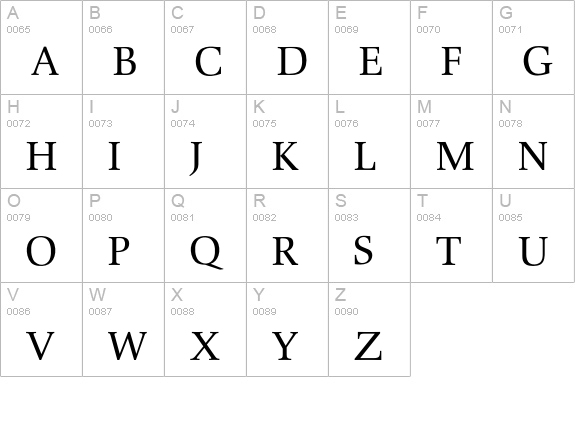
Pacific Font Details
Pacific font is an exquisite typeface that embodies elegance and sophistication. With its clean lines and timeless appeal, it effortlessly captures attention and adds a touch of refinement to any design project. This font is the perfect choice for those seeking a versatile typeface that can be used in various contexts, from branding materials to editorial layouts. Its well-balanced proportions and gentle curves create a harmonious visual experience, making it easy to read and pleasant to the eye. One of the most remarkable aspects of Pacific font is that it is available for free. Yes, you heard it right! This stunning font can be freely downloaded at FontsMarket.com, allowing designers and typographers to access its beauty without any cost. FontsMarket.com offers a wide range of free fonts, but Pacific stands out as a true gem among them. Whether you are working on a personal project or a commercial endeavor, Pacific font is an invaluable asset that will elevate your designs to new heights. Its versatility and timeless appeal make it suitable for a myriad of applications, from logo designs and packaging to website headers and social media graphics. With Pacific font, you can unleash your creativity and bring your ideas to life with confidence. Its seamless integration with various design software ensures a smooth workflow, while its extensive character set caters to multiple languages and typographic needs. Download Pacific font for free at FontsMarket.com and experience the power of this exceptional typeface. Let its elegance and sophistication inspire your designs and leave a lasting impression on your audience. Embrace the beauty of Pacific font and take your creative endeavors to the next level.